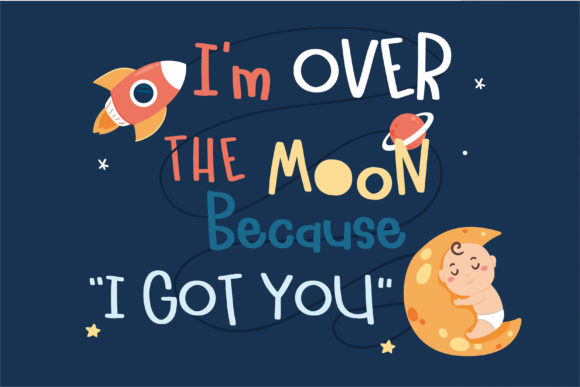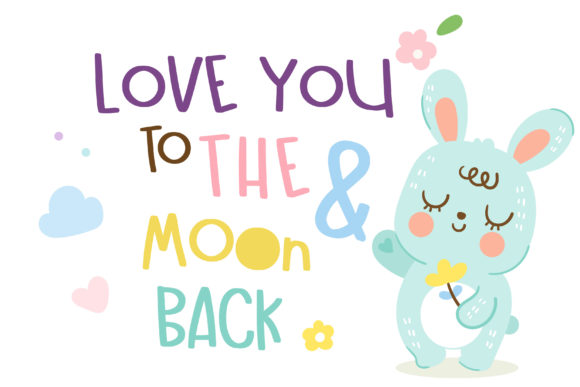
Baby Rabbit Kid Font
db-ku.com - Script & Handwritten -- Baby Rabbit Kid is a cute and simple lettered handwritten font that can be used for all chalkboard quotes or teaching material! Its authentic look will add a personal and realistic feel to your designs. Baby Rabbit Kid is PUA encoded which means you can access all of the glyphs and swashes with ease!